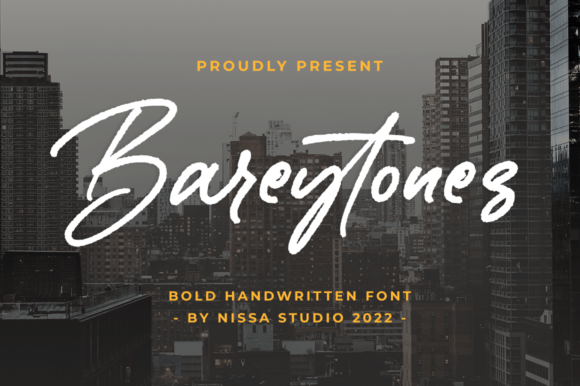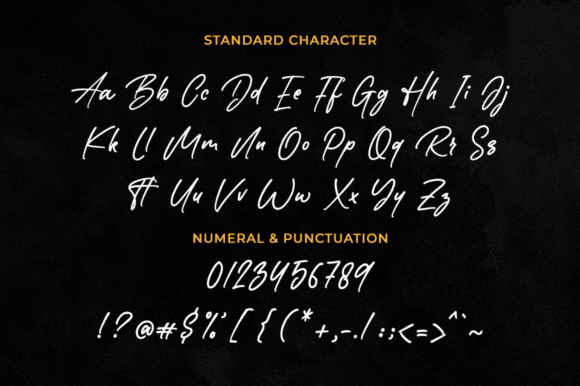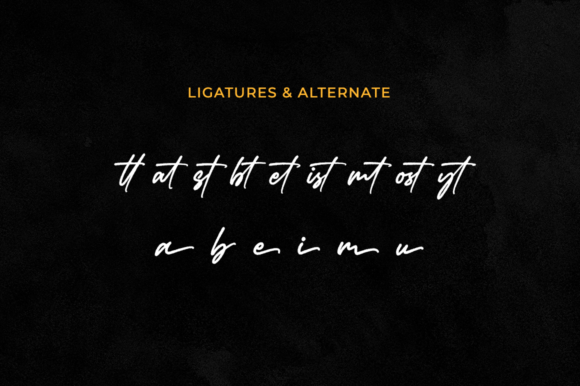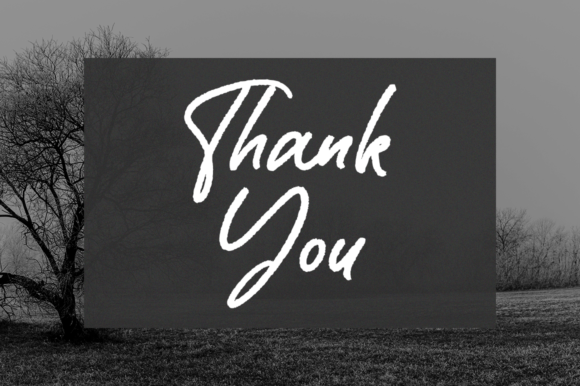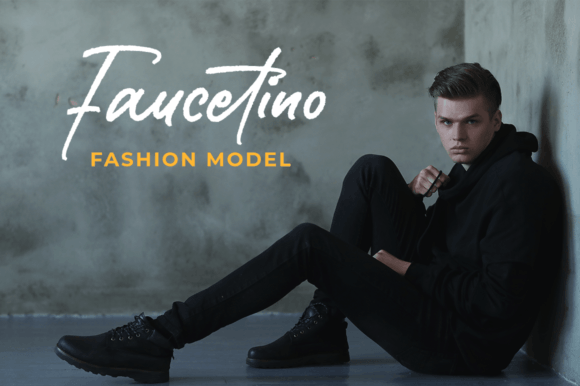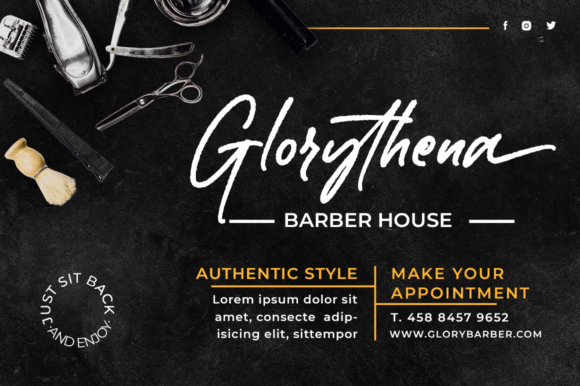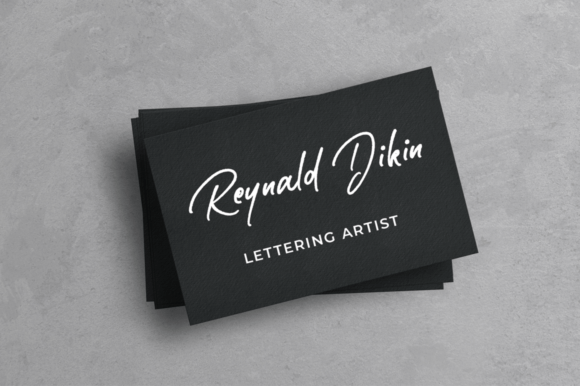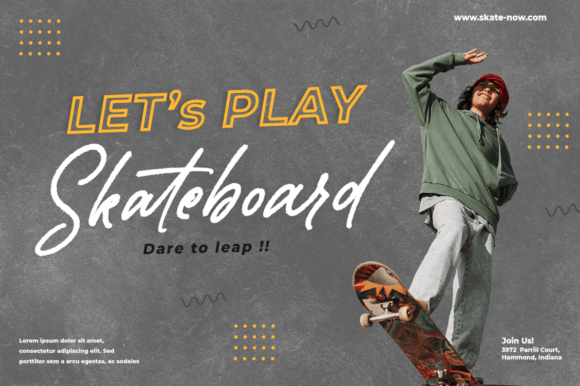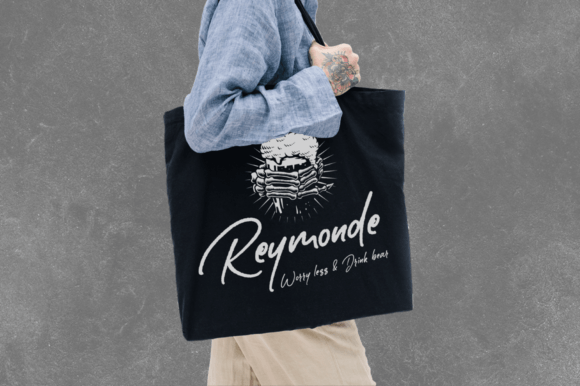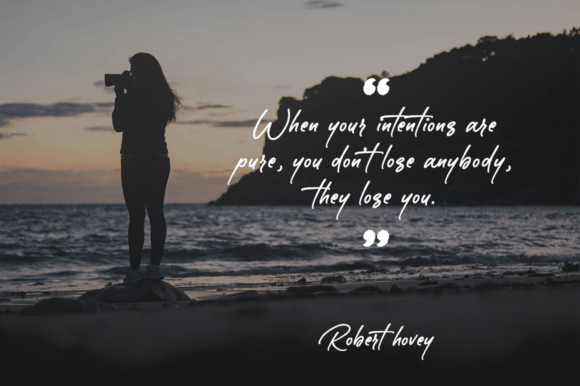
Bareytones Font
“Bareytones” is a friendly and versatile brush-stroke font that seamlessly integrates into a wide array of designs. This font, characterized by dry brush strokes, not only imparts an elegant aesthetic but also adds a contemporary and modern flair to your projects.
The brush-stroke style of “Bareytones” is perfect for creating a dynamic and expressive visual impact. Its friendly and approachable design makes it suitable for a variety of applications, from branding and logos to posters, social media graphics, and more.
One notable feature of “Bareytones” is its PUA encoding, providing easy access to all glyphs and swashes. This feature enhances the font’s versatility, allowing you to personalize and customize your designs effortlessly.
In summary, “Bareytones” is more than just a font; it’s a creative tool that combines elegance with modernity. Its brush-stroke script adds a lively and contemporary touch to your designs, making it an excellent choice for projects where a friendly and approachable yet stylish aesthetic is desired.